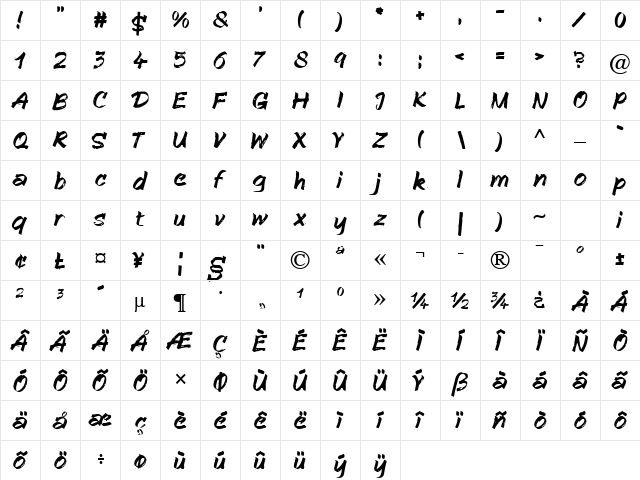
Veleno Becker Normal
Design Context for Veleno Becker Typeface
Veleno Becker is a composed and adaptable typeface that performs quietly and consistently across a wide range of design contexts.